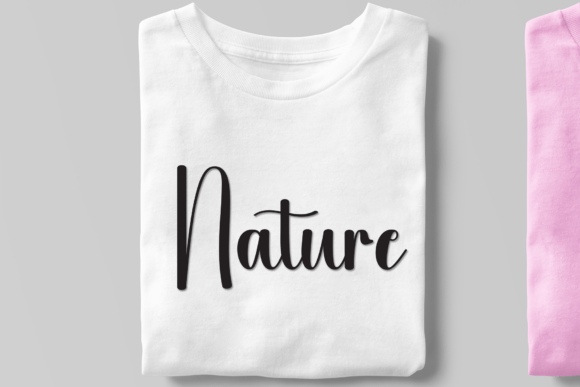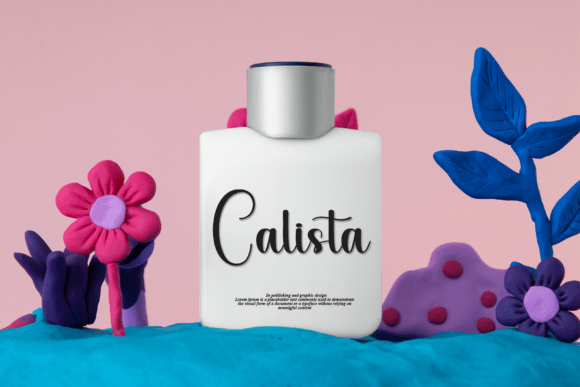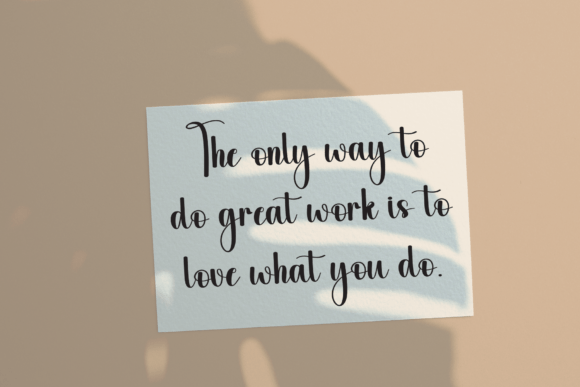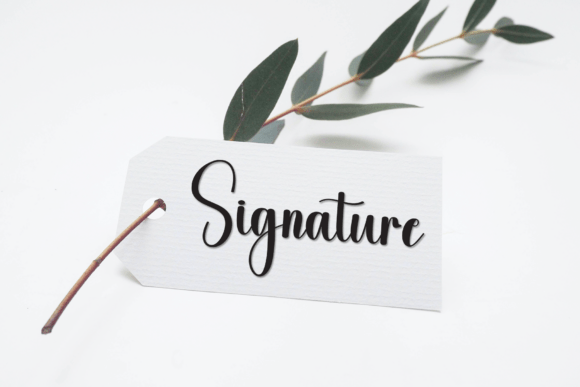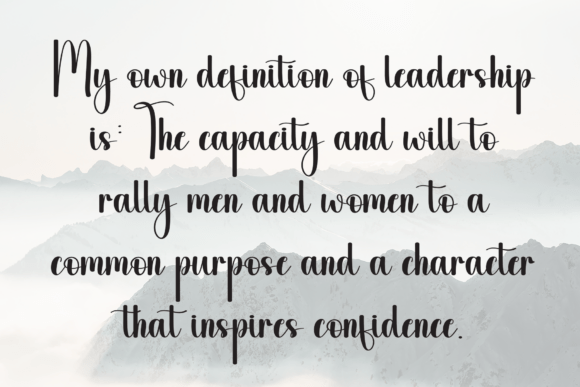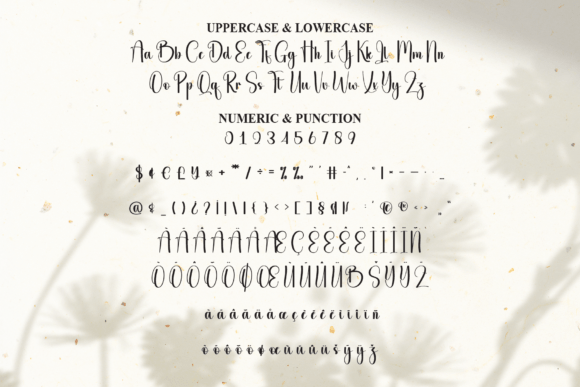
The Art of Elegance: Exploring the Greeting Font
In the world of typography, few fonts manage to capture the essence of artistic flair and contemporary elegance as effortlessly as the Greeting Font. This stylish script font has been making waves in the design community, and for good reason. With its fluid brush strokes, dynamic curves, and expressive letterforms, Greeting embodies the perfect blend of hand-painted calligraphy and modern sophistication.
The Characteristics of Greeting Font
So, what sets Greeting apart from other fonts? The answer lies in its unique characteristics. Each letterform is carefully crafted to exude a sense of natural flow and vibrancy, making it perfect for designs that require a creative and sophisticated touch. The fluid brush strokes give the font a sense of movement and energy, while the dynamic curves add a level of elegance and refinement.
Uses of Greeting Font
Greeting Font is incredibly versatile, making it suitable for a wide range of design applications. Some of the most popular uses for this font include:
- Logos: Add a touch of sophistication and elegance to your brand’s logo with Greeting Font.
- Invitations: Make your invitations stand out with the beautiful, hand-painted feel of Greeting Font.
- Packaging: Elevate your product packaging with a font that exudes luxury and refinement.
- Social Media Graphics: Add a creative and sophisticated touch to your social media graphics, and make your content stand out from the crowd.
The Benefits of Using Greeting Font
So, why should you choose Greeting Font for your next design project? Here are just a few benefits of using this stunning font:
- Visual Impact: Greeting Font delivers a significant visual impact, making it perfect for designs that require a statement piece.
- Versatility: With its natural flow and vibrant character, Greeting Font can be used in a wide range of design applications.
- Elegance: This font exudes a sense of sophistication and refinement, making it perfect for luxury brands and high-end designs.
Tips for Using Greeting Font
To get the most out of Greeting Font, here are a few tips to keep in mind:
- Use it sparingly: While Greeting Font is incredibly elegant, it can be overwhelming if used excessively. Use it sparingly to create a statement piece or add a touch of sophistication to your design.
- Experiment with colors: Greeting Font looks stunning in a variety of colors, so don’t be afraid to experiment and find the perfect hue for your design.
- Pair it with contrasting fonts: For maximum impact, pair Greeting Font with contrasting fonts that complement its elegant, cursive feel.
In conclusion, Greeting Font is a stylish script font that embodies the perfect blend of artistic flair and contemporary elegance. With its fluid brush strokes, dynamic curves, and expressive letterforms, it’s the perfect choice for designers and crafters looking to add a creative and sophisticated touch to their designs. Whether you’re creating logos, invitations, packaging, or social media graphics, Greeting Font delivers both visual impact and versatility.